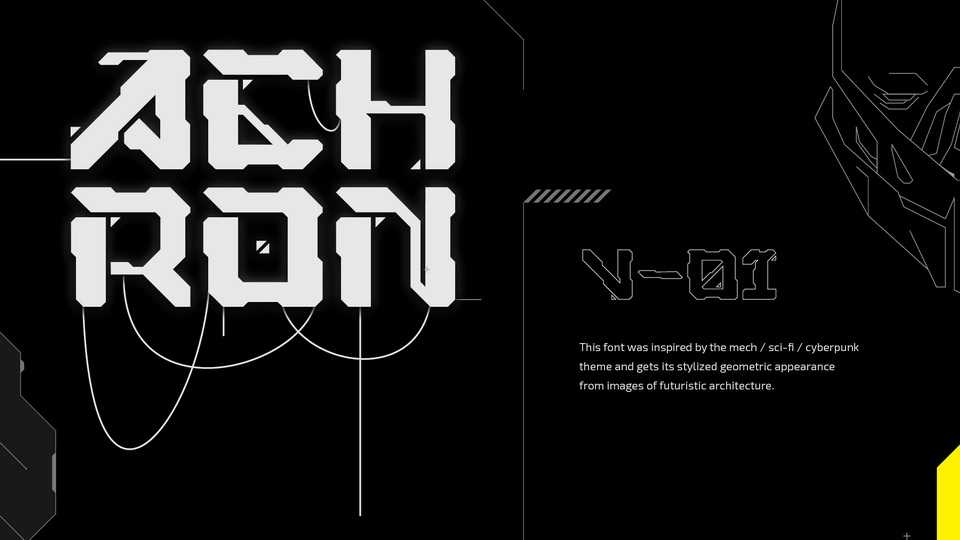
Download Achron font, a display typeface inspired by the mech/sci-fi/cyberpunk theme and gets its stylized geometric appearance from images of futuristic architecture.
Designer: Norista Design